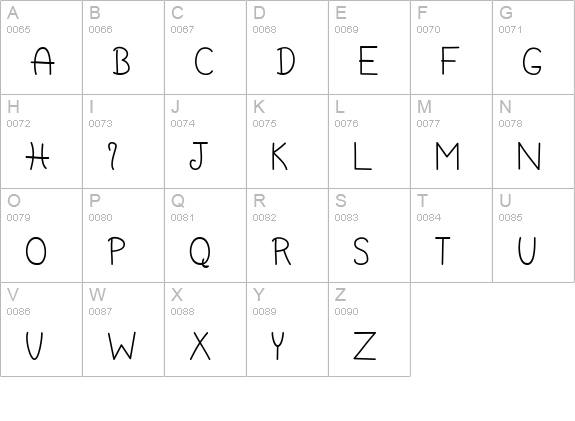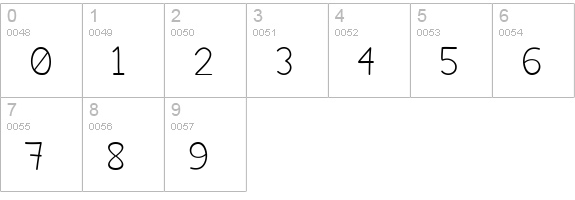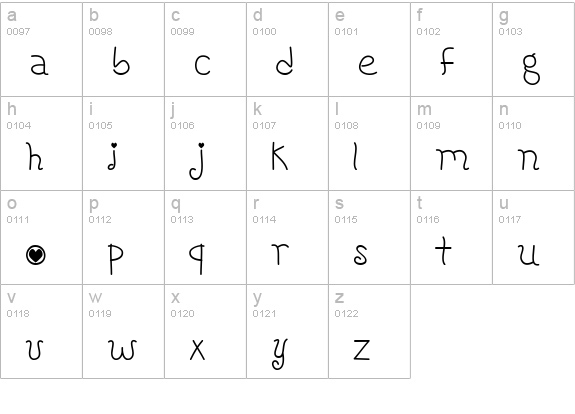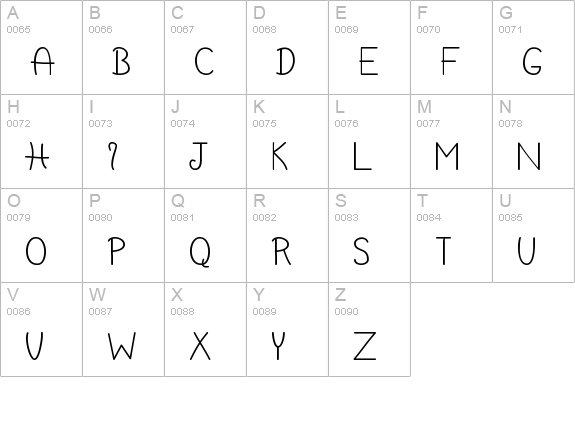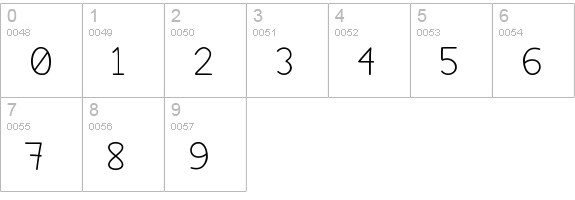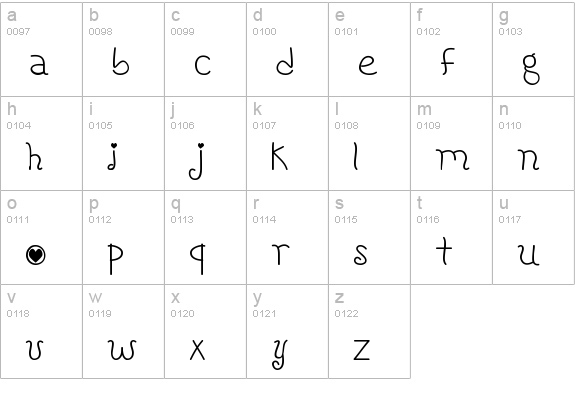
HoneybeeRegular font is a versatile and stylish typeface that embodies the delicate beauty and industrious nature of the honeybee. With its clean lines and elegant curves, this font is perfect for adding a touch of sophistication to any design project. Whether you're creating logos, branding materials, or simply looking to add a unique flair to your personal documents, HoneybeeRegular font is sure to impress. One of the best features of HoneybeeRegular font is that it is freely available to download at FontsMarket.com. This means that you can easily access and use this stunning font without any cost. Whether you're a professional designer or a casual enthusiast, having access to high-quality fonts for free is a game-changer. The versatility of HoneybeeRegular font is evident in its ability to adapt to various design styles. Its clean and legible characters make it perfect for both print and digital mediums, ensuring that your message is always clear and impactful. The attention to detail in the design of this font is evident in every letter, allowing for a seamless and visually pleasing reading experience. Whether you're looking to create eye-catching headlines or elegant body text, HoneybeeRegular font has you covered. Its timeless appeal and modern twist make it a go-to choice for designers and creatives alike. With its freely available download at FontsMarket.com, you can easily incorporate this stunning font into your next project and elevate your design to new heights.